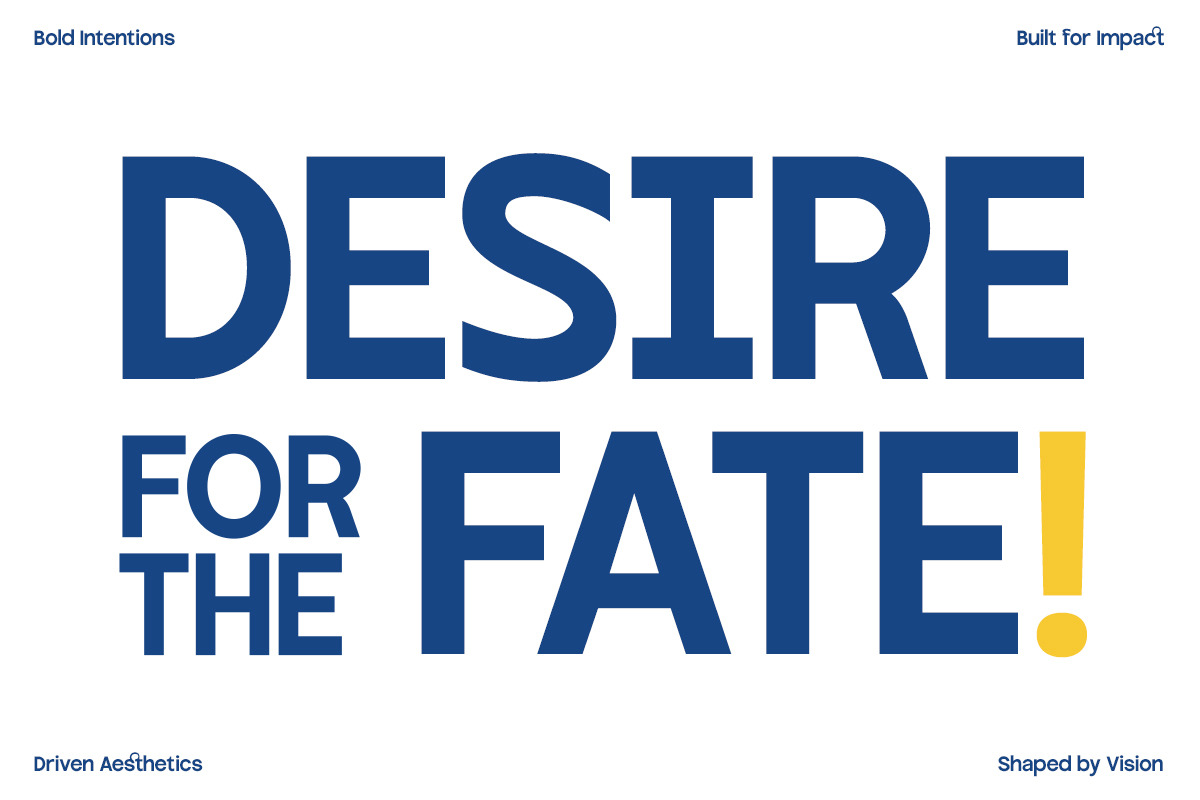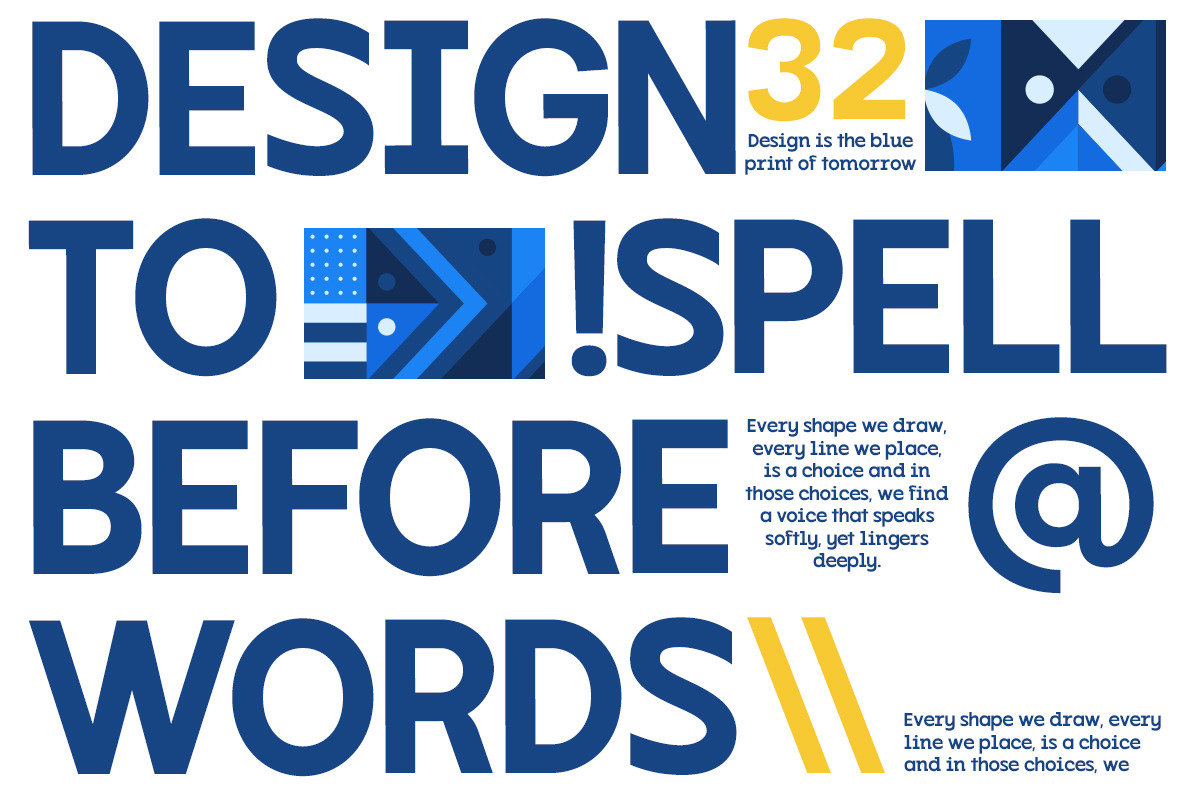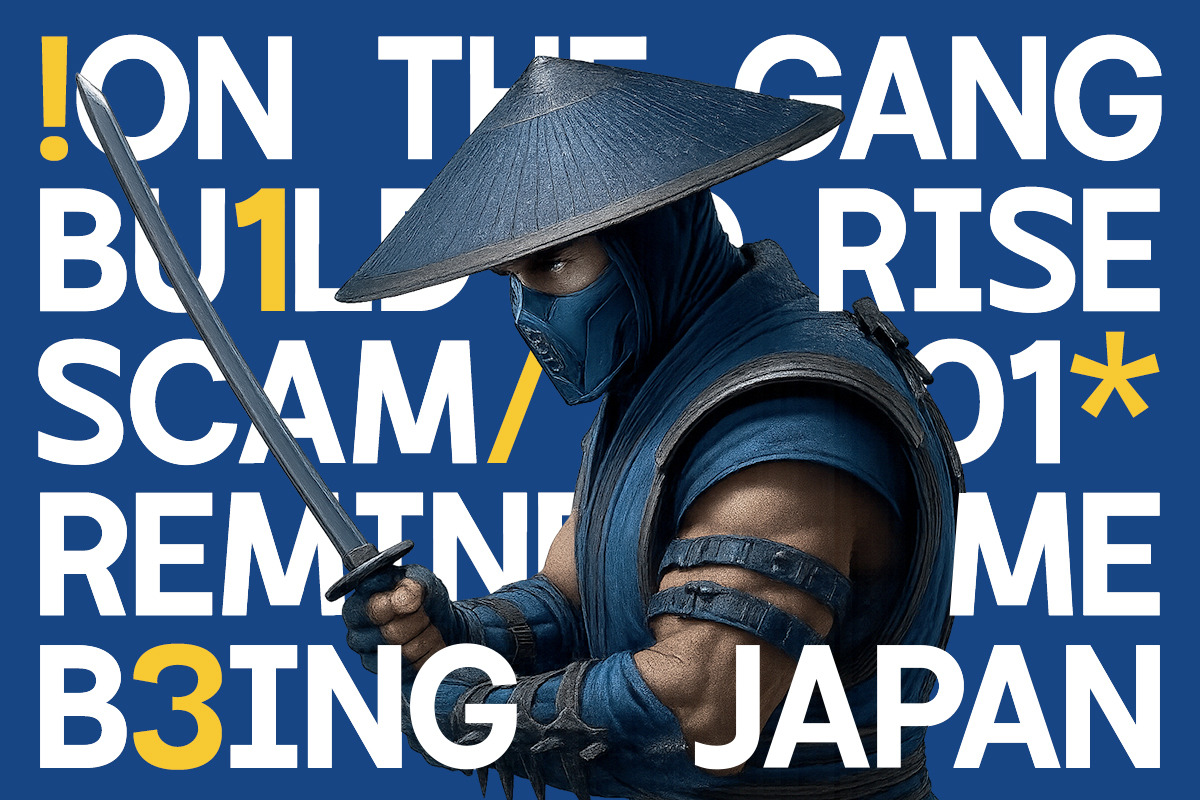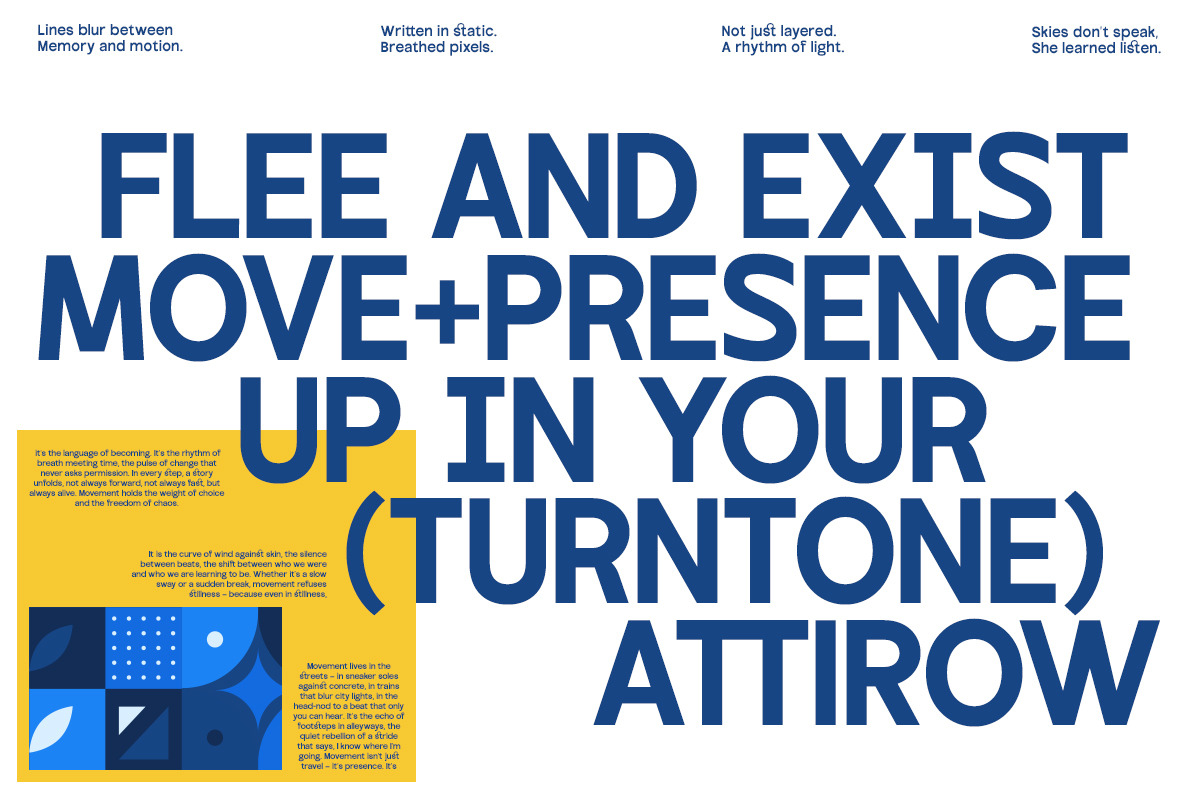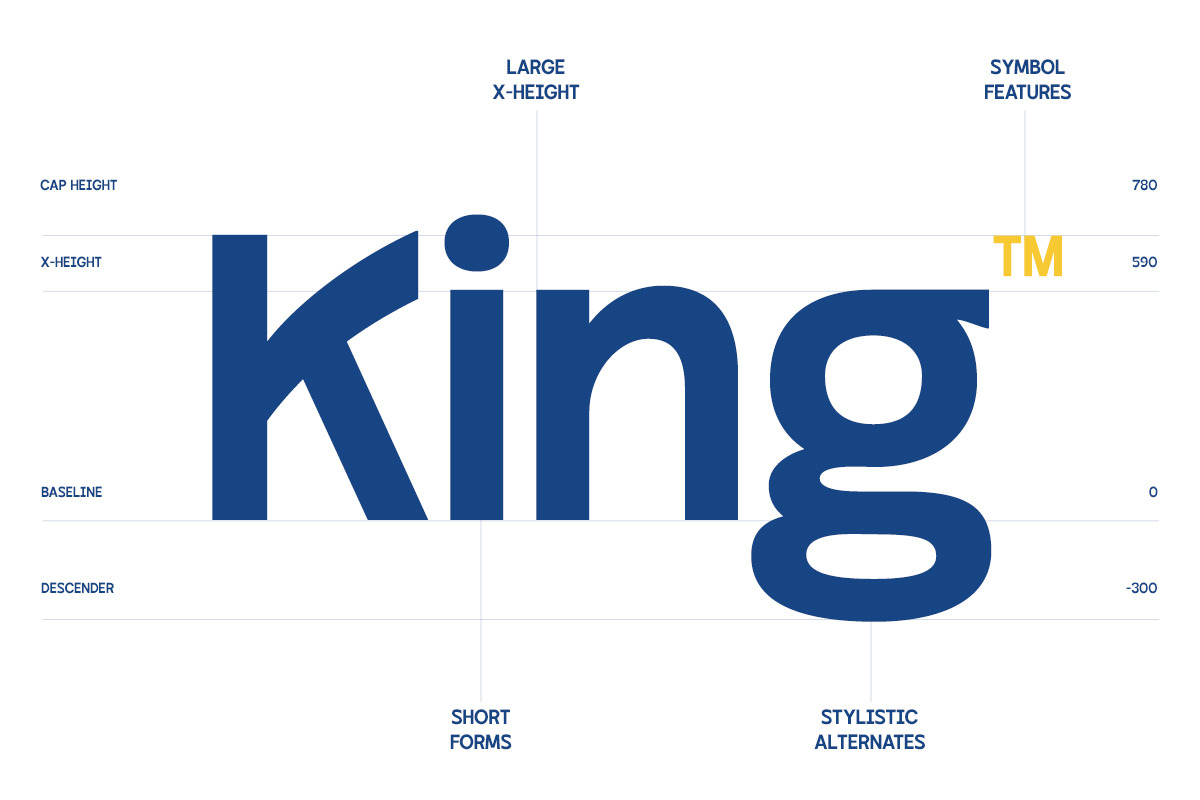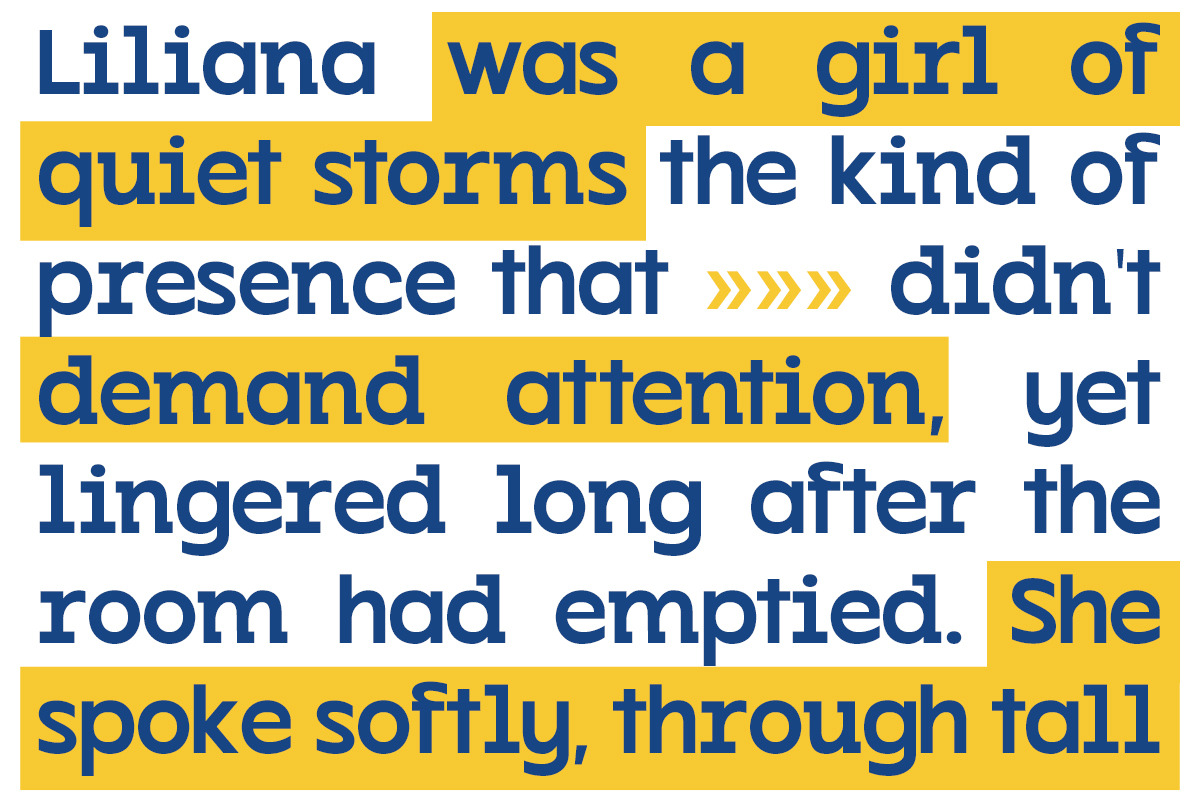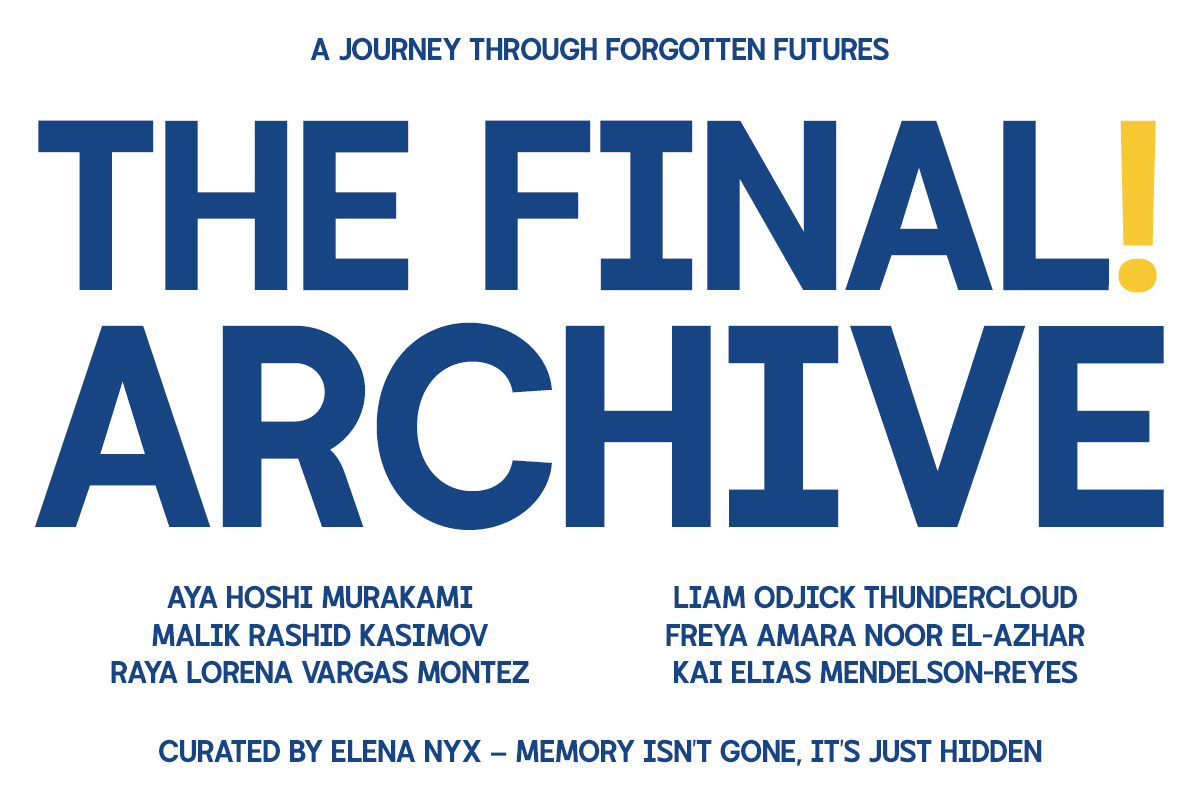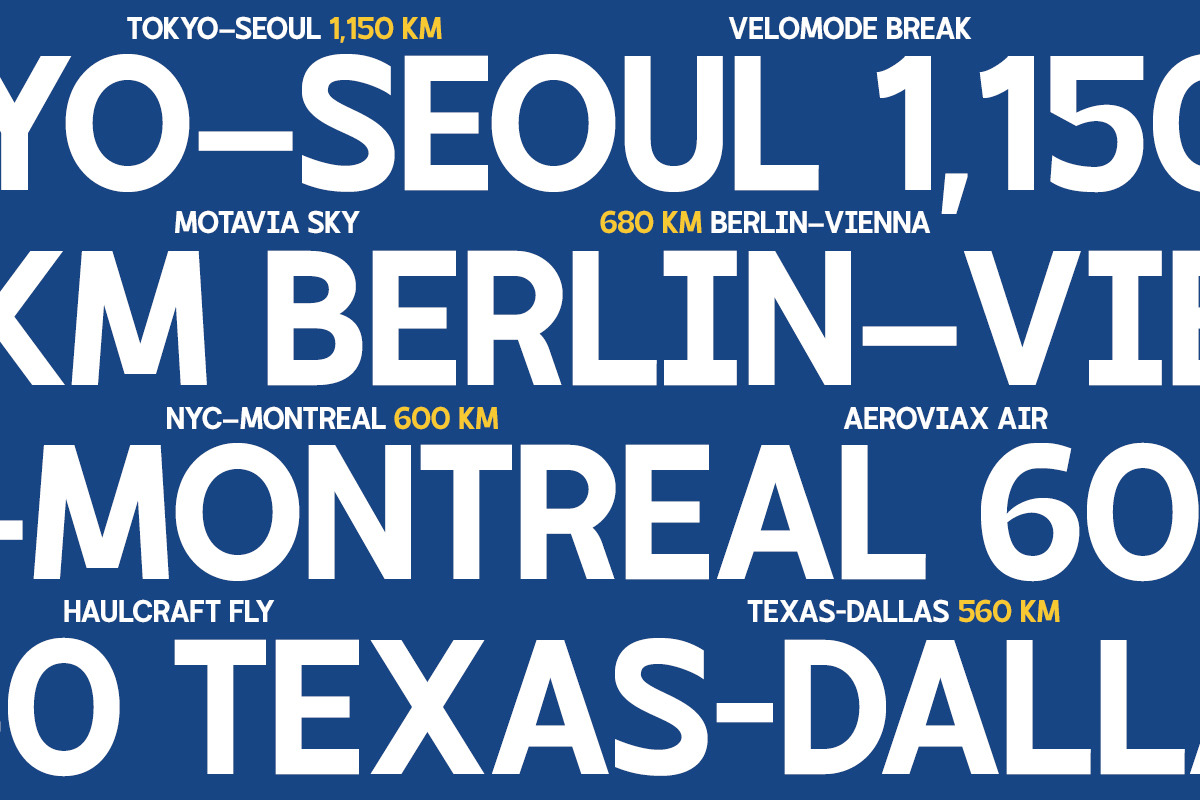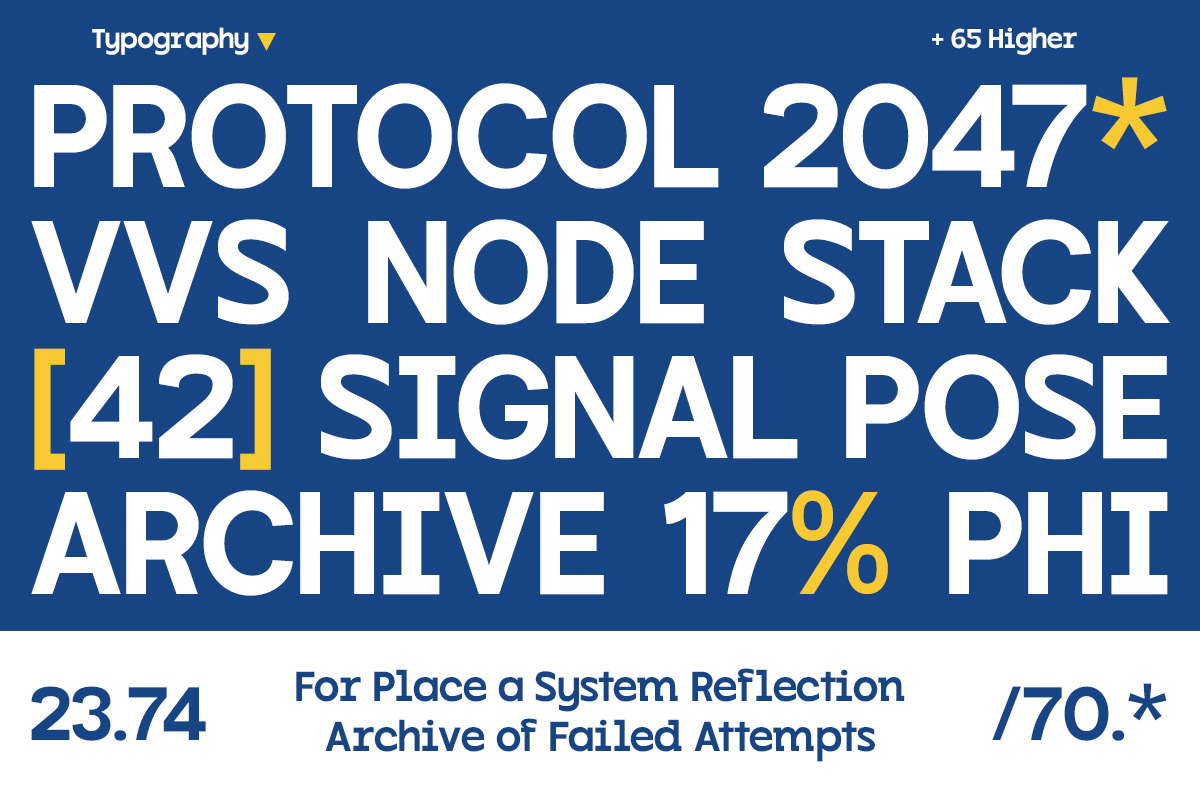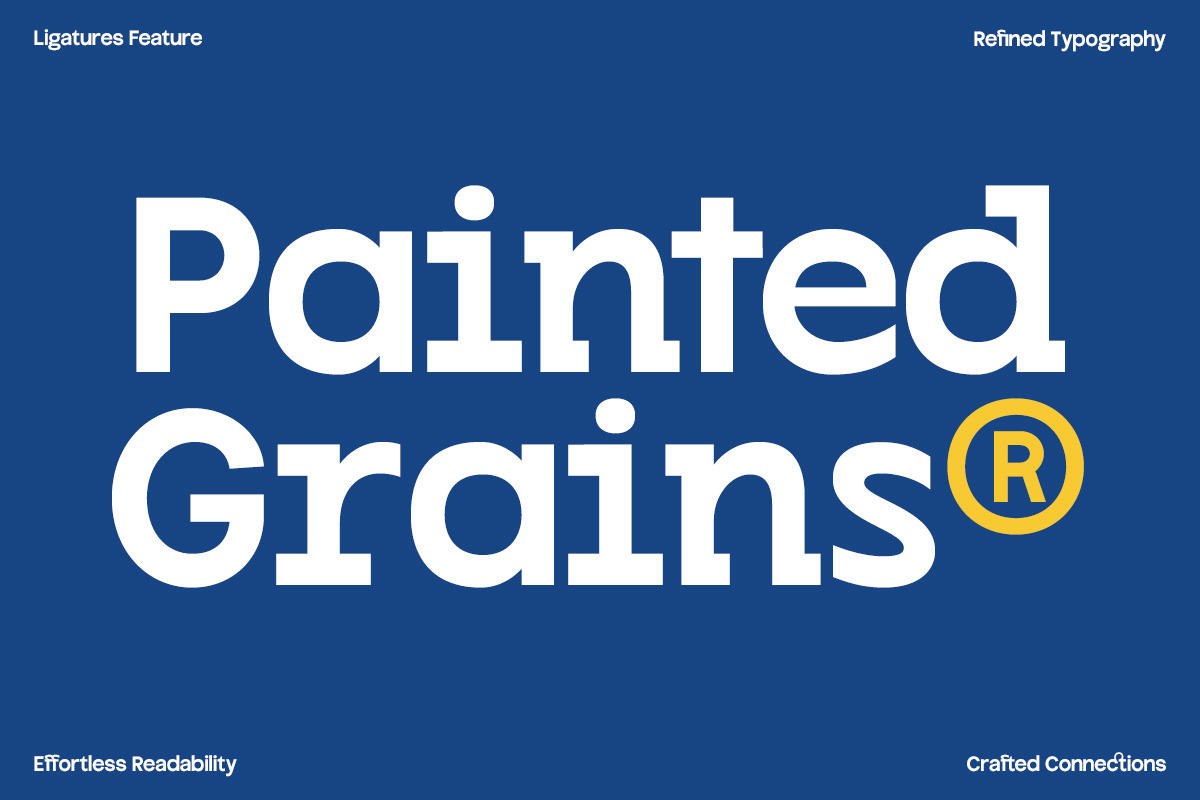
GC Kabuki - New Grotesque Sans
GC Kabuki is a new grotesque sans-serif typeface that blends clean modernism with subtle character and visual rhythm. Perfectly suited for headlines, branding, logos, packaging, and editorial layouts, it’s crafted to leave a lasting impression.
With its balanced proportions, neutral tone, and minimal yet distinctive letterforms, GC Kabuki brings personality and sophistication to any design. Whether you're designing for fashion, lifestyle, technology, or artistic visuals, this typeface offers versatility and refined style.
- Ligatures & Stylistic Alternates
Make your design bold, refined, and timeless with GC Kabuki.